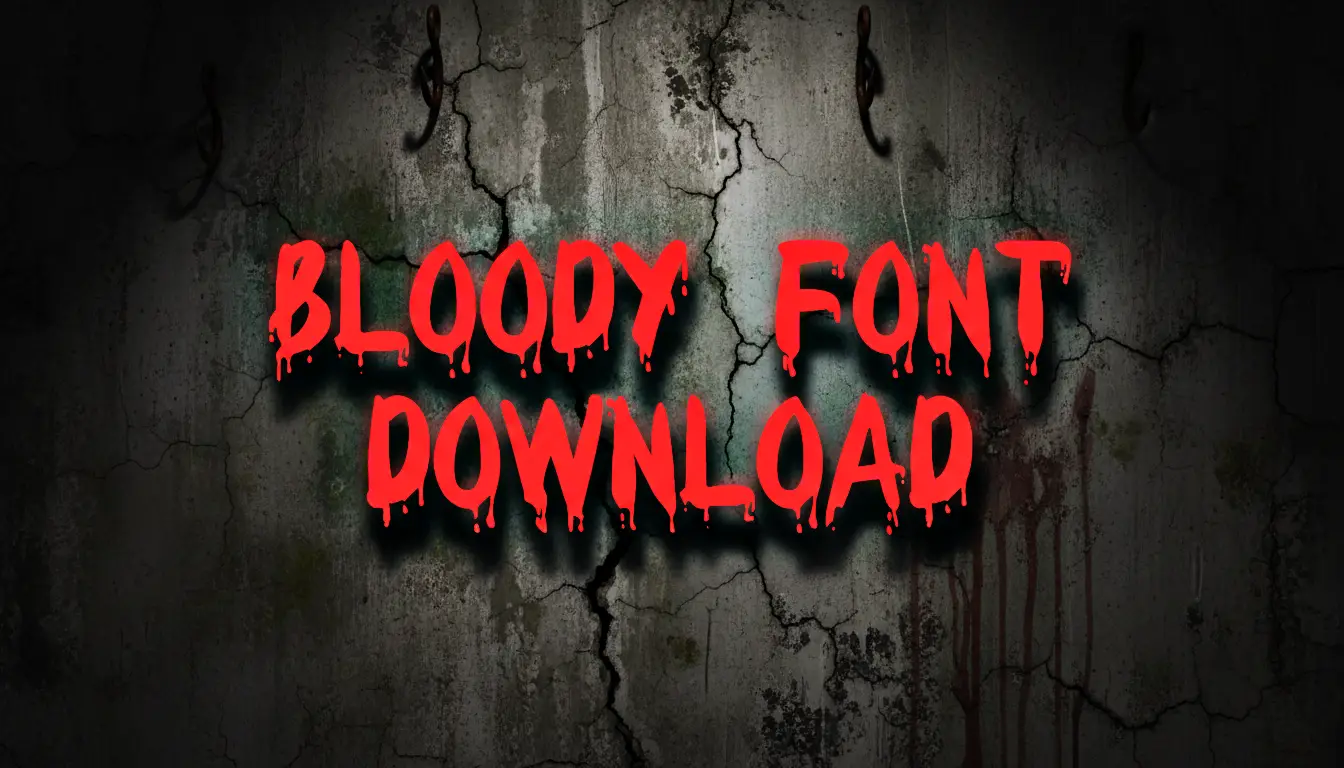
Bloody Font
Bloody is a fancy font. Bold and full of character, it's built to stand out rather than blend in. You can download it for free and test it with your own words in the preview above.
What You Can Type With Bloody
You get every letter from A to Z in both cases and all the numbers from 0 to 9, which means Bloody can handle full sentences, dates and prices. Common punctuation such as &, !, ? and @ is included as well. It doesn't include accented letters such as é or ñ, which makes it an English-only font.
Where Bloody Works Best
Bloody is a natural fit for posters, logos and eye-catching headlines. Use it for one standout word or headline and let simpler fonts handle the rest.
Does Bloody support accented letters?
No. Bloody has no accented letters such as é, ñ or ü, so it's best for English text.